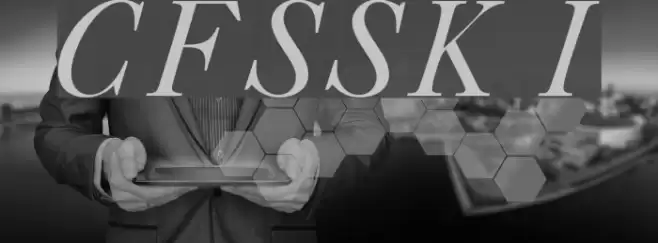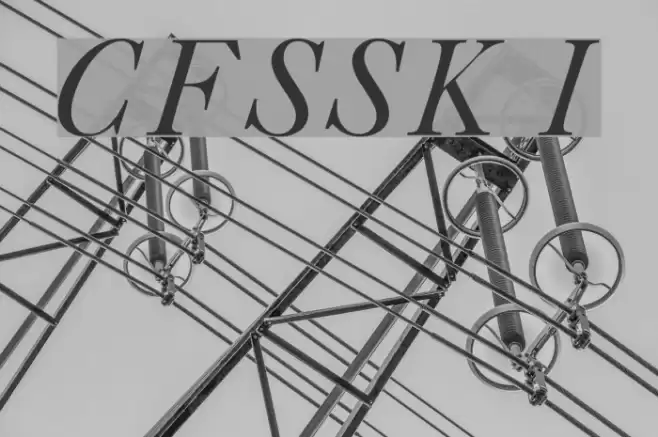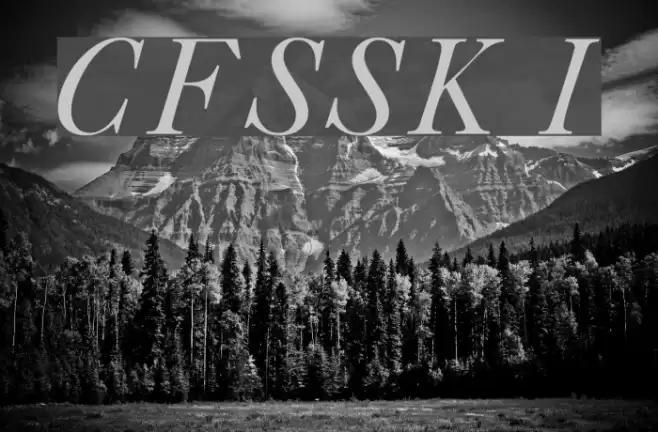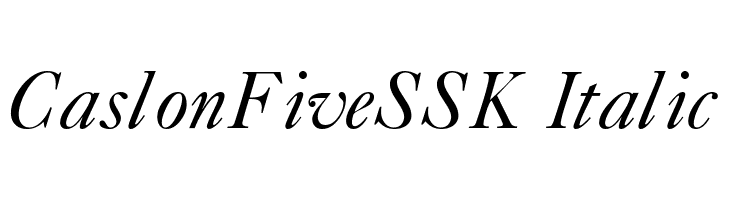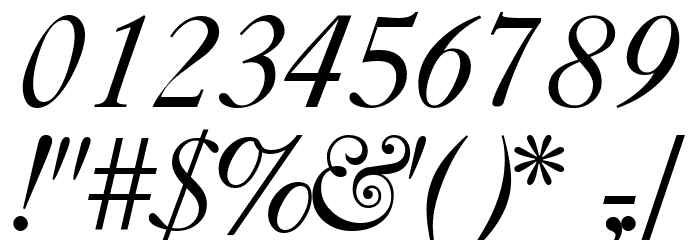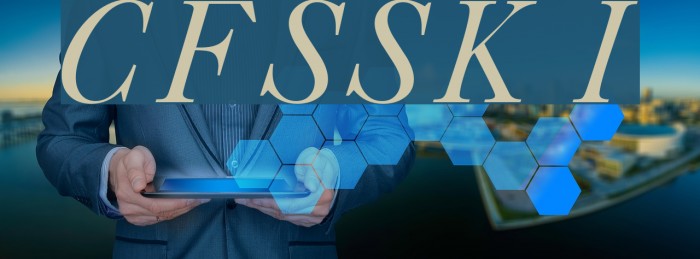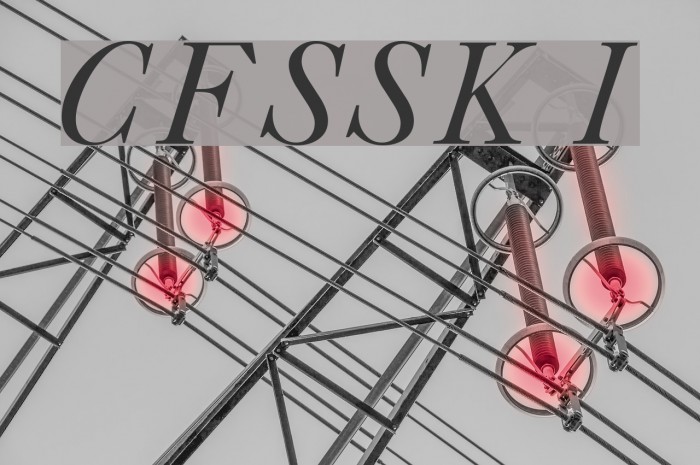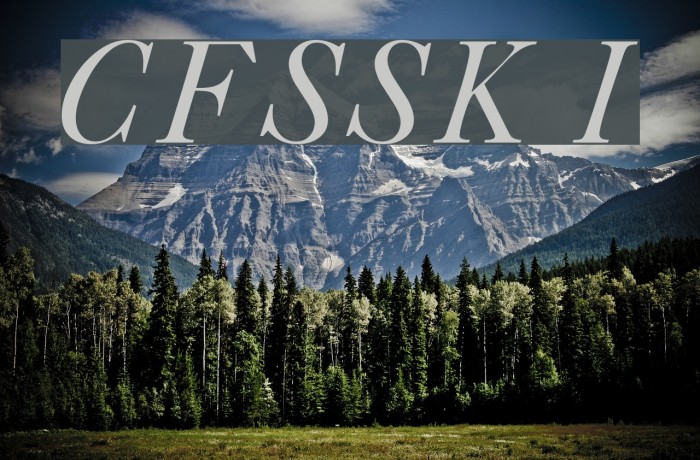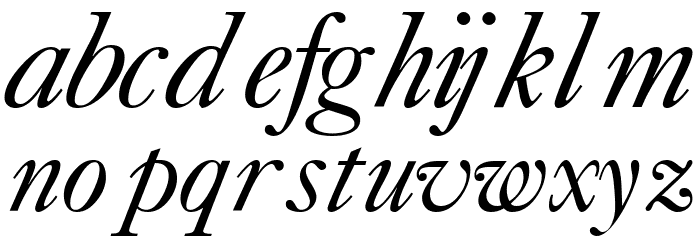
CaslonFiveSSK Italic
This font features a classic, elegant style with a distinct italic slant, reminiscent of traditional serif typefaces. The characters exhibit a refined and sophisticated appearance, with smooth curves and a moderate contrast in stroke thickness. The serifs are pronounced yet delicate, adding to the font's timeless appeal. The overall design is balanced and harmonious, making it suitable for conveying a sense of tradition and formality. The numerals and special characters maintain the same elegant style, ensuring consistency across all elements.
An elegant, classic serif font with a refined italic slant and moderate stroke contrast.
- Category: Serif
- Overall Style: Classic